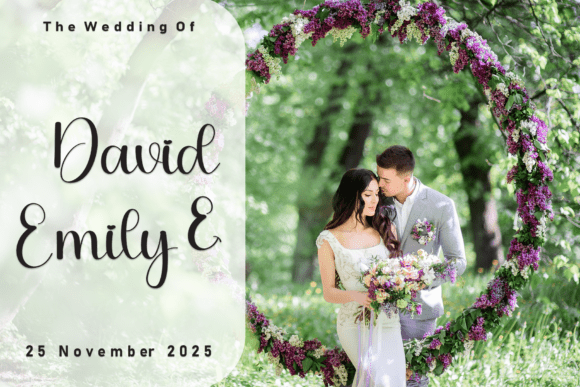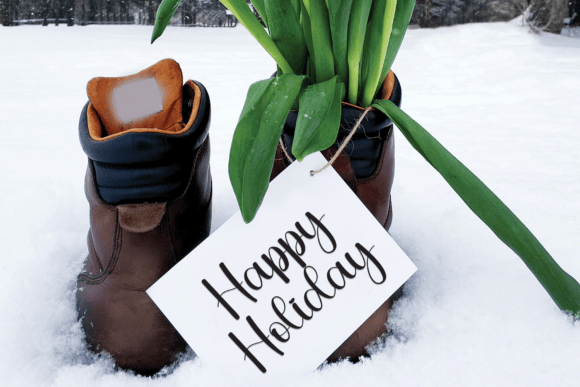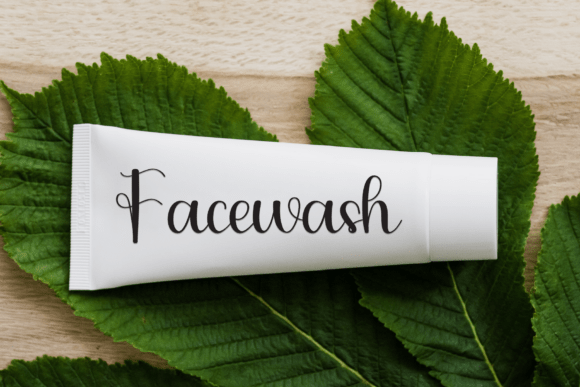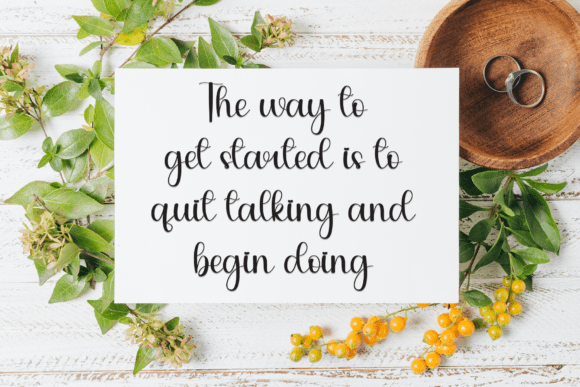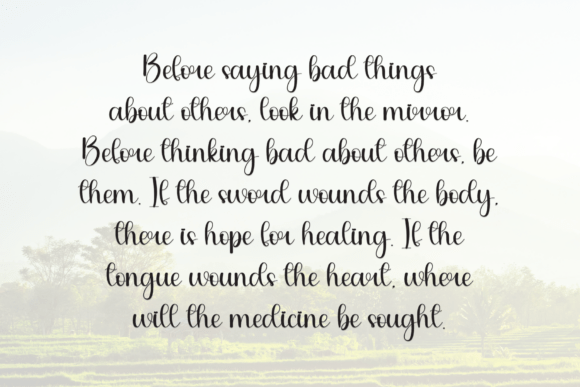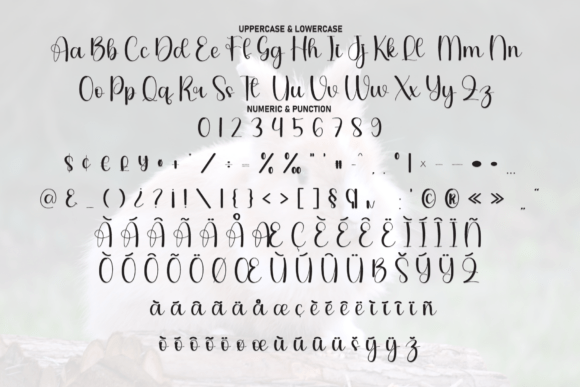
The Perfect Font for Your Creative Masterpiece
Have you ever stared at a blank page, waiting for inspiration to strike? For designers, that moment of creative spark can be the start of something truly special. And when it happens, the right font can be the key to bringing your vision to life.
Enter the Bunny Font, a stylish script font that combines artistic flair with contemporary elegance. With its fluid brush strokes and dynamic curves, this font captures the essence of hand-painted calligraphy with a modern twist. Whether you’re designing a logo, invitation, or social media graphic, the Bunny Font adds a creative and sophisticated touch that’s sure to impress. For designers, it’s a valuable asset that delivers both visual impact and versatility, making it a must-have in any design toolkit.
Bunny Font Key Features
- Font Family: Bunny Font is a unique, hand-drawn font with a playful and whimsical feel.
- Unique Characteristics: Bunny Font features a distinctive, cursive style with intricate details and flourishes, making it ideal for adding a touch of personality to designs.
- Characters and Glyphs: The font includes a wide range of characters, including uppercase and lowercase letters, numbers, punctuation, and special symbols.
Bunny Font Review
Overall, I think the Bunny Font is a cute and playful addition to any design project. ✨ It’s perfect for creating a whimsical and child-friendly atmosphere, and the rounded edges give it a soft, approachable feel.
One of the things that works well with the Bunny Font is its consistency. ✨ The font is well-designed, with a clear and consistent style that makes it easy to read and understand. The font also works well in a variety of sizes, from small captions to large headings.
However, there are a few limitations to consider. ⚠️ The font may not be suitable for formal or professional projects, as it can come across as too playful or childish. Additionally, the font may not be as readable at very small sizes, which could be a problem for projects that require a lot of text.
Here are some pros and cons to consider:
- Pros: ✨ cute and playful, consistent design, works well in a variety of sizes
- Cons: ⚠️ may not be suitable for formal projects, may not be readable at very small sizes
Overall, I think the Bunny Font is a great choice for projects that require a lighthearted and playful touch. Just be sure to consider the context and audience before using it.
Use the Bunny Font to create playful and whimsical designs, such as:
- Children’s party invitations
- Food and drink labels
- Gift tags and wrapping paper
For the best results, use the Bunny Font in conjunction with bright colors and playful graphics.
Great Vibes Font is a fun, cursive script font that is perfect for adding a touch of whimsy and playfulness to your designs. It’s ideal for use in social media graphics, posters, and advertising designs where a casual, laid-back vibe is required. Great Vibes Font has a more relaxed and casual look compared to Bunny Font, making it suitable for designs that require a carefree feel.